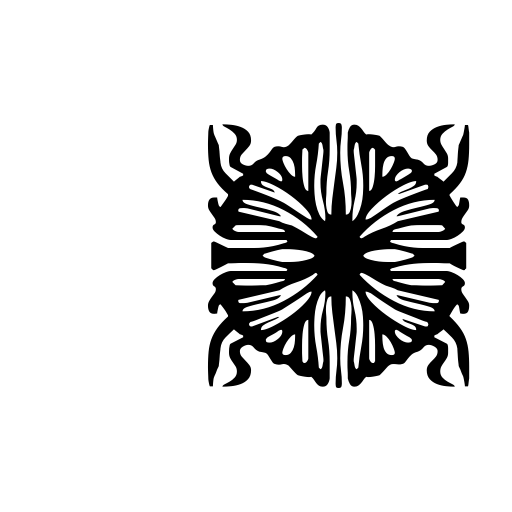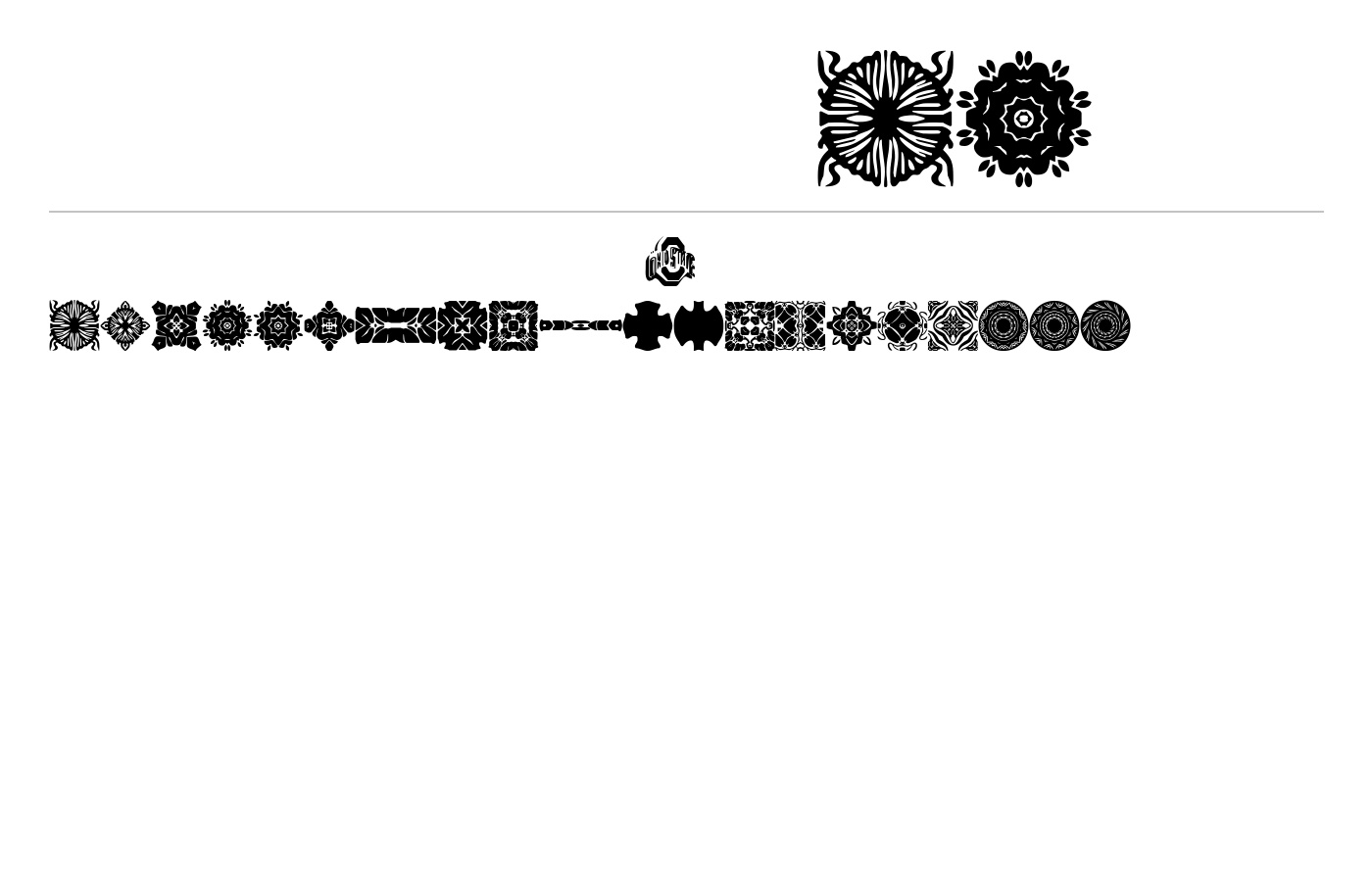
BR 4 My Dad Font is a highly decorative and ornamental typeface composed of intricate, symmetrical glyphs that resemble artistic floral or mandala patterns rather than traditional letters. This font brings a bold, elaborate visual impact perfect for creative projects that need a unique, artistic flair, such as logos, posters, or decorative branding. Its distinctive style makes it ideal for adding a touch of elegance and complexity to designs, especially in contexts where a striking, ornamental look is desired.
BR 4 My Dad Font